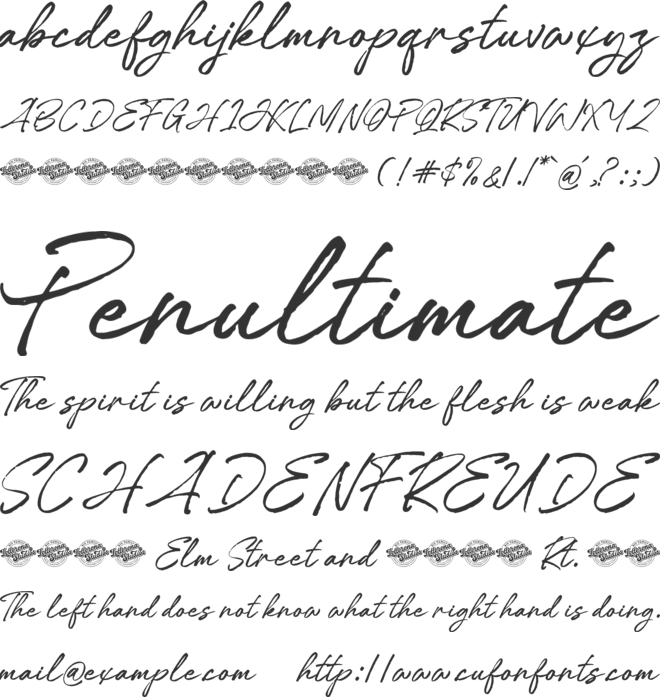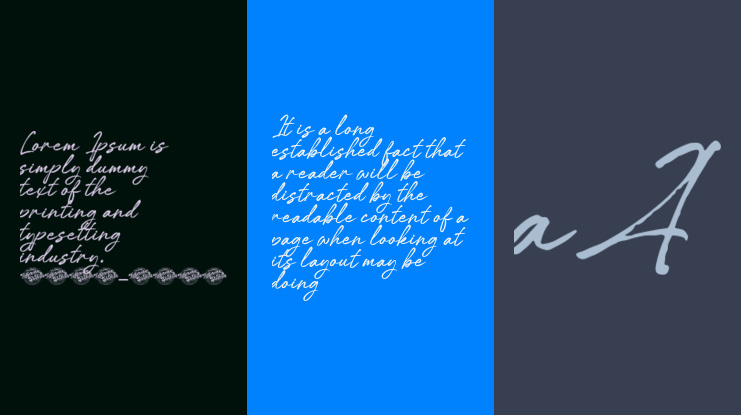
The Hantwels - Signature Handwritten Brush Script
Elevate your creative projects with an unmatched sense of authenticity and fluid elegance. The Hantwels - Signature Handwritten Brush Script captures the raw energy of hand-painted strokes, offering a distinctive creative identity that stands out in a crowded market. This authentic brush script features an organic texture and a natural flow, making it an essential asset for designers seeking to convey personality and high-end craftsmanship in every letter.
Experience the pinnacle of design versatility with a typeface engineered for luxury branding and high-impact visuals. The Hantwels - Signature Handwritten Brush Script is perfect for sophisticated packaging, editorial design, and bespoke wedding invitations where a personal touch is paramount. Whether applied to social media graphics or premium product labels, this font ensures your brand maintains a refined aesthetic that resonates with discerning audiences.